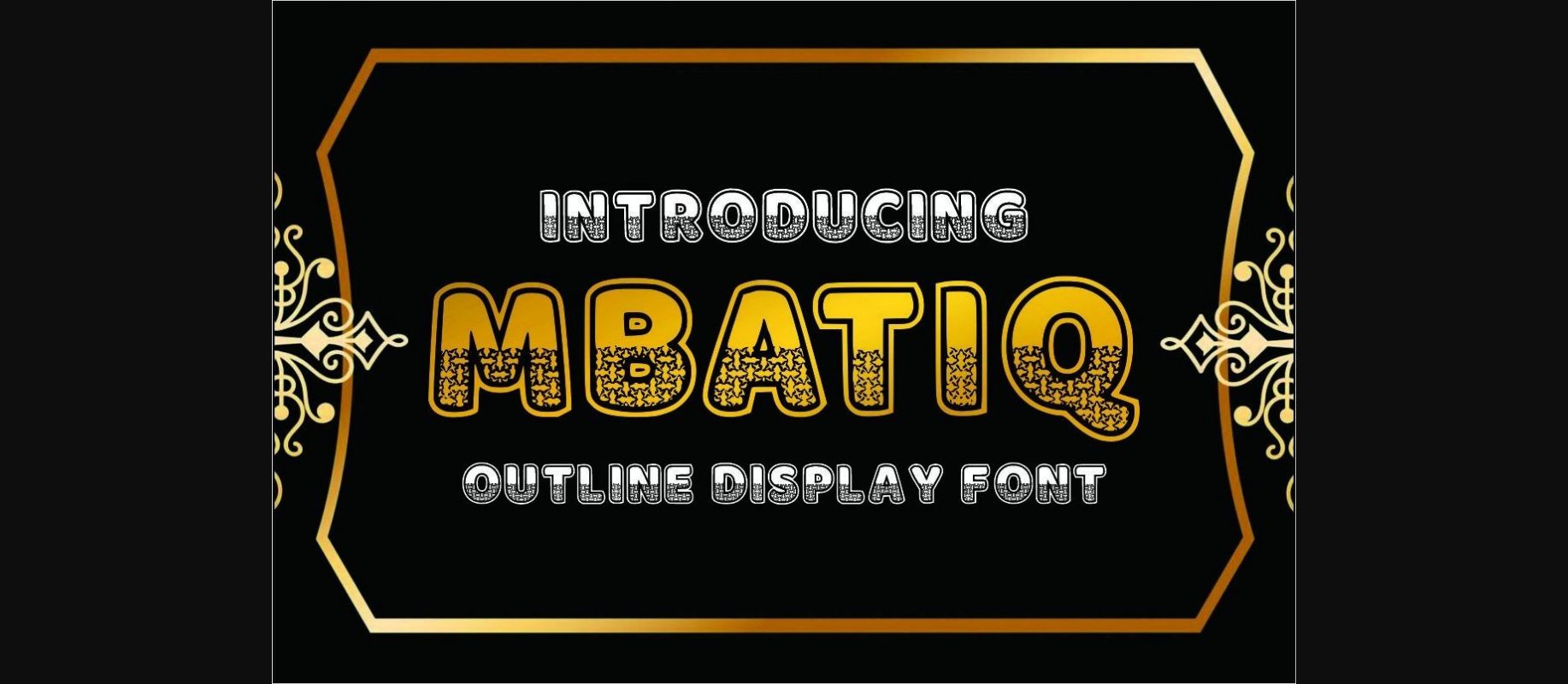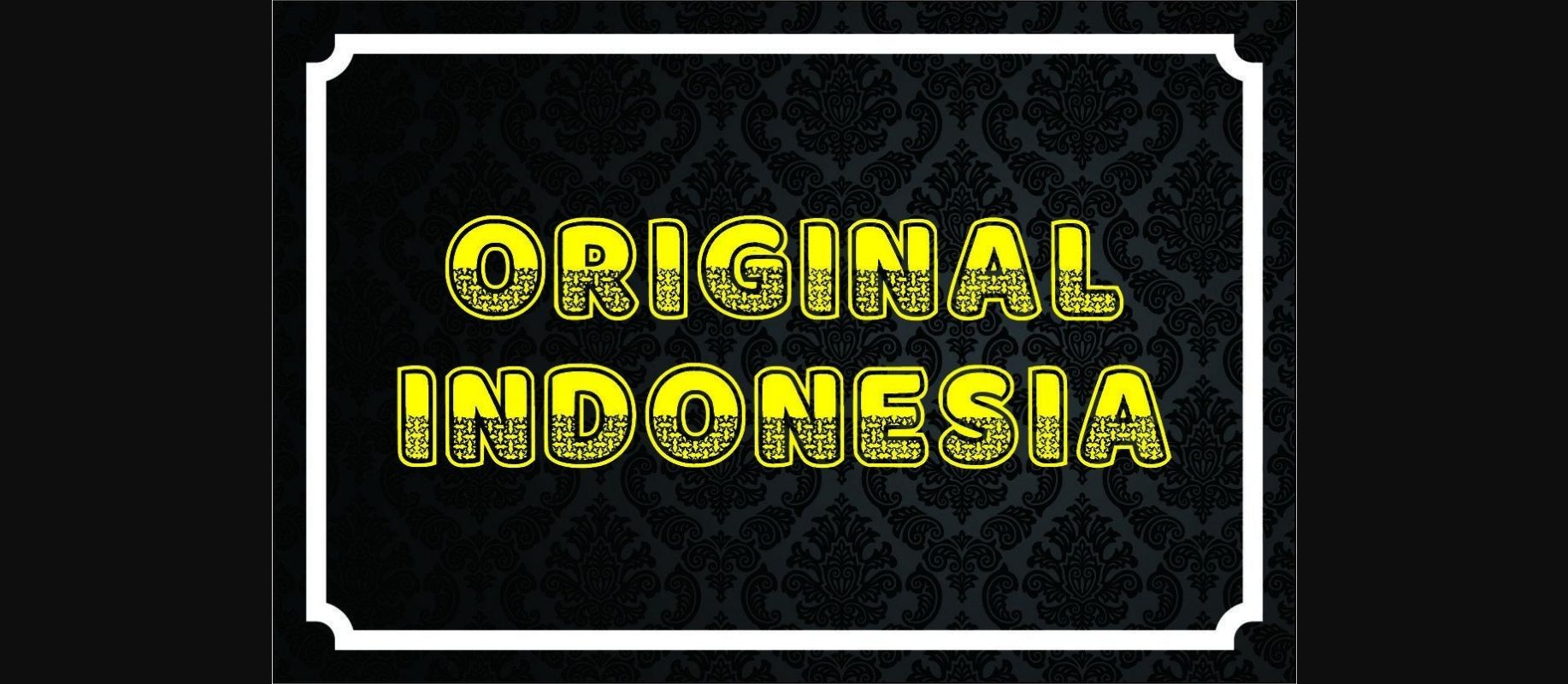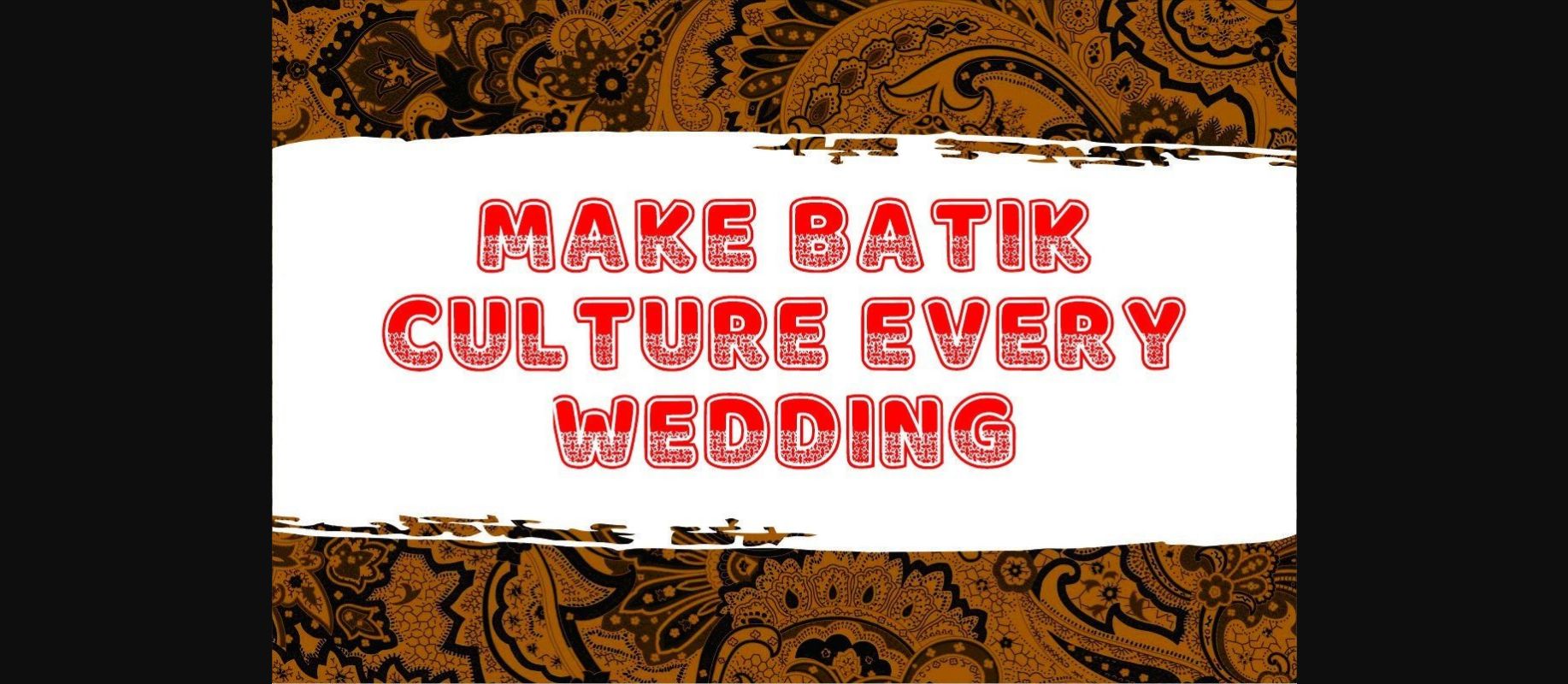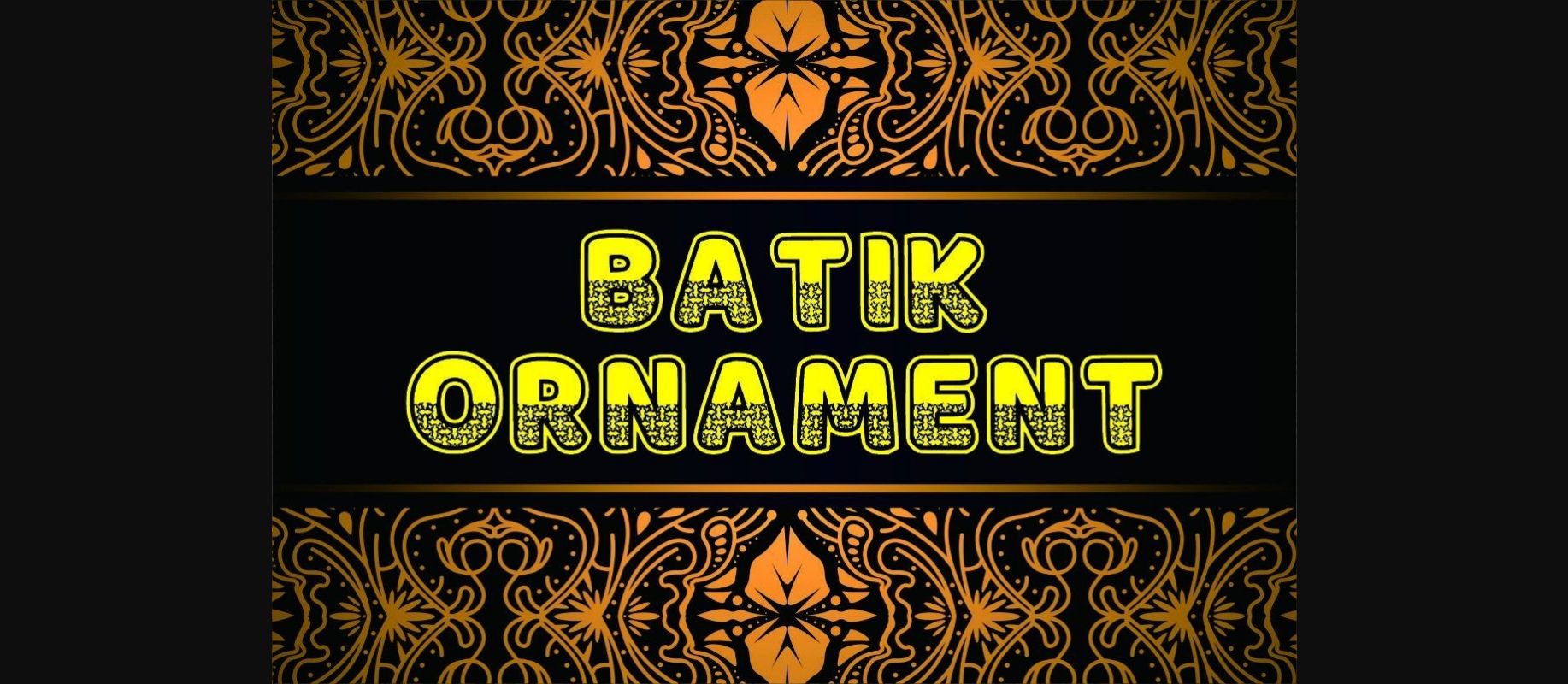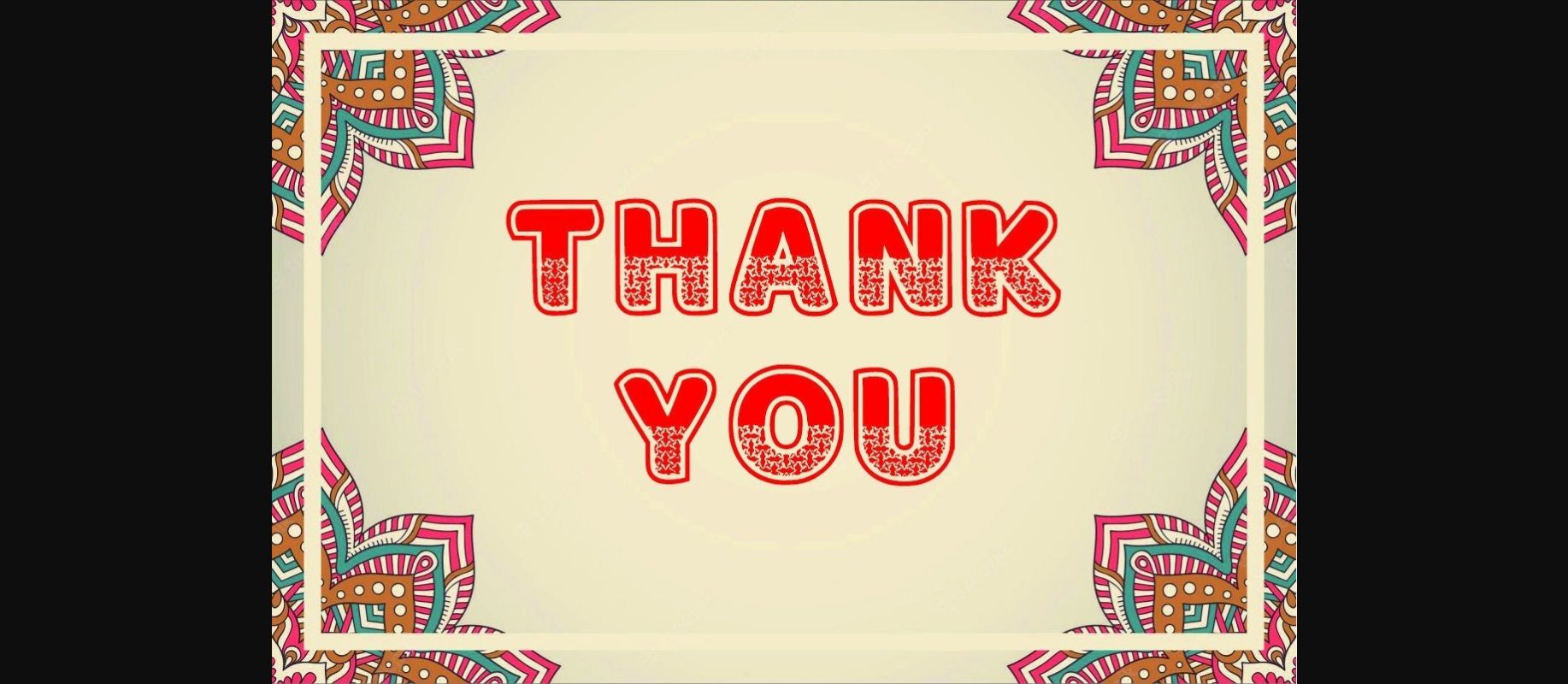
Mbatiq Font
About Mbatiq Font
Mbatiq is an excellent decorative typeface that includes layers of textures, designed with high-resolution details embedded in it. So no need to spend hours creating designs, and logos, for your project.